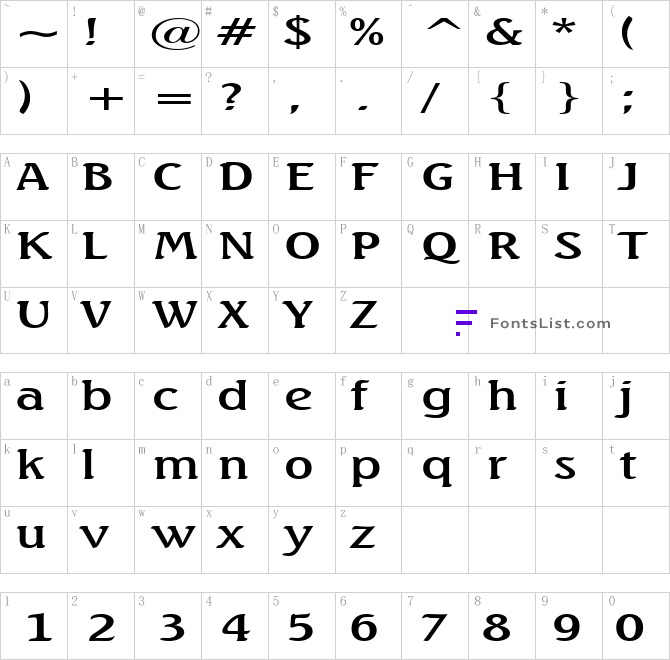
- Font Name:BeachExtended
BeachExtended-Normal.ttf is a very beautiful artistic font, BeachExtended-Normal.ttf is widely used in the design and printing of various books and pictures,BeachExtended-Normal.ttf has a strong visual impact,BeachExtended-Normal.ttf is a commonly used font in newspapers, magazines and books, and is used in posters, e-commerce Poster design, store design, logo design, font design and other fields.BeachExtended-Normal.